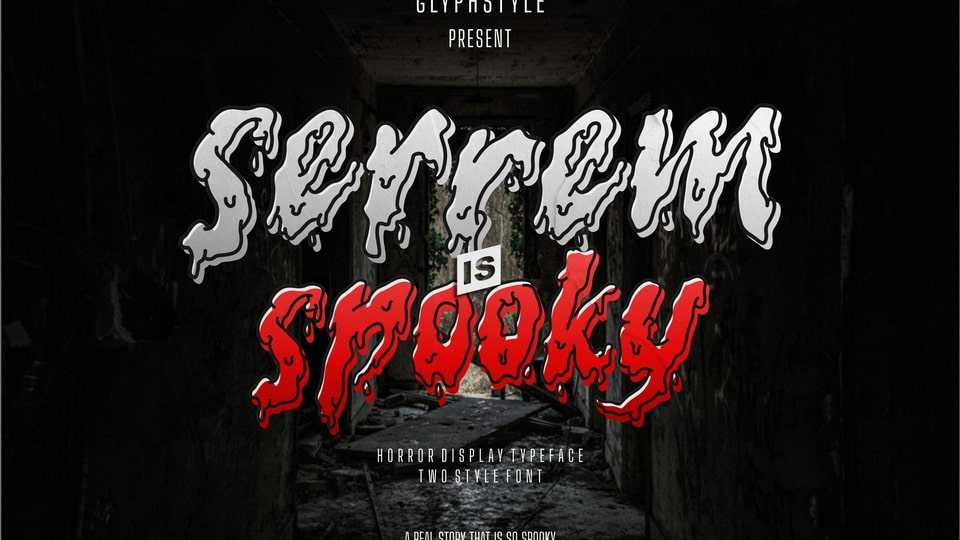
Download Serrem font, a horror-themed display typeface. Serrem font with a terrible form of blood droplets. there are two styles, outline and solid, very suitable for Halloween or horror themed projects.